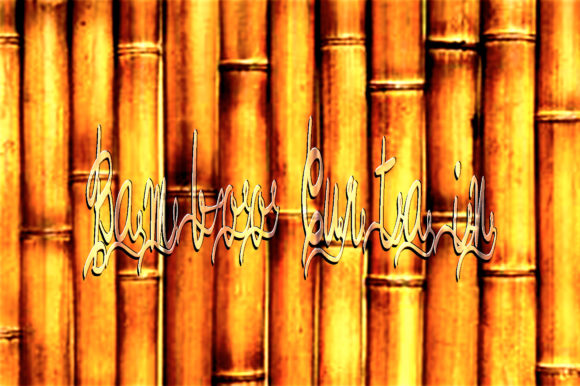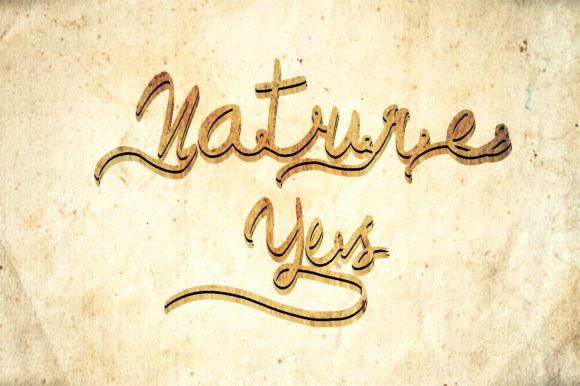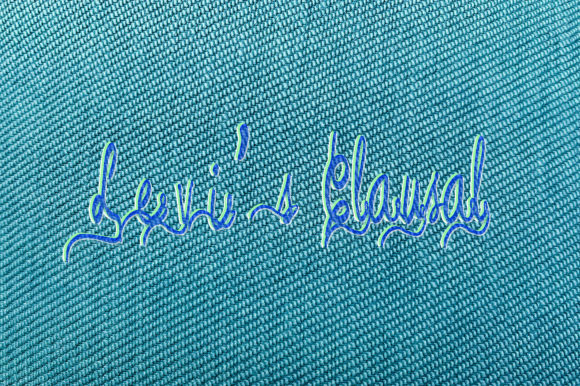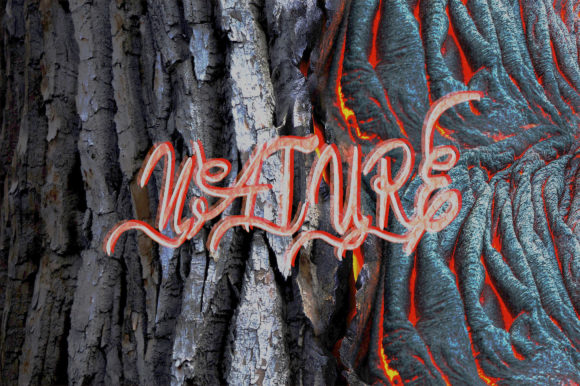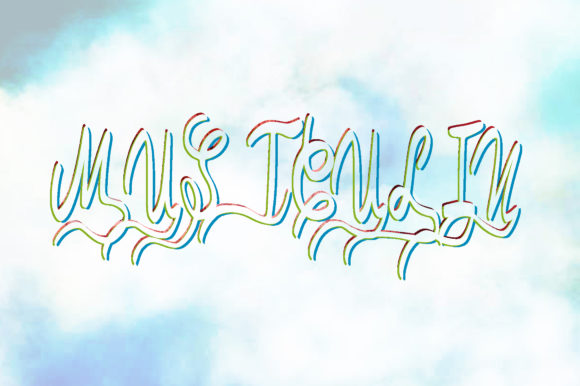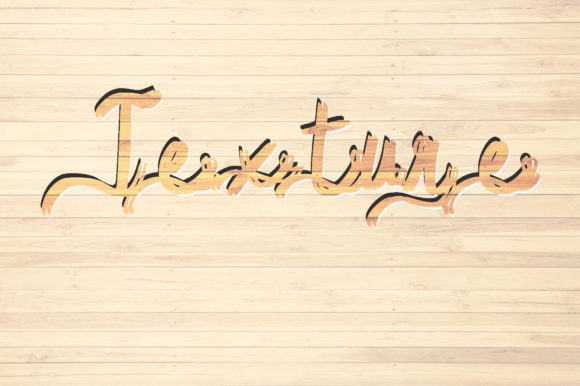
Bamboo Curtain Font: Elevate Your Designs with Whimsy and Elegance
Are you a designer or crafter looking for a font that embodies the perfect blend of delicacy, whimsy, and chic sophistication? Look no further than the Bamboo Curtain Font. This exquisite script font is designed to bring a touch of elegance and playfulness to your creative projects, making it an ideal choice for a wide range of design applications.
What Makes Bamboo Curtain Font Special?
Bamboo Curtain Font stands out with its beautiful and balanced character set, carefully crafted to ensure that each letter and swash complements the others in a harmonious dance. This attention to detail makes it a versatile addition to your font collection, capable of enhancing large design pools with its unique charm.
Applications of Bamboo Curtain Font
The versatility of Bamboo Curtain Font makes it suitable for a myriad of design projects. Here are a few ideas to get you started:
• Wedding Invitations and Stationery: Add a touch of whimsy and romance to your wedding designs with the elegant swashes and delicate letters.
• Fashion and Beauty Branding: Elevate your brand with a sophisticated and chic font that speaks to a refined audience.
• Packaging Design: Stand out on the shelves with eye-catching packaging that incorporates the beautiful, flowing lines of Bamboo Curtain.
• Digital and Print Media: Whether it’s for a website, blog, magazine, or advertisement, this font can add a unique and captivating element to your content.
Tips for Using Bamboo Curtain Font
To make the most of Bamboo Curtain Font, consider the following tips:
• Experiment with Swashes: Don’t be afraid to play around with the various swashes and glyphs available. They can add a personal touch to your designs.
• Mix and Match: Combine Bamboo Curtain with other fonts for interesting contrasts and visual hierarchies.
• Pay Attention to Spacing: Given its elegant and delicate nature, ensure that you adjust the spacing between letters appropriately to maintain readability and aesthetics.
Bamboo Curtain Font is more than just a script font; it’s a design element that can transform your projects with its whimsical, delicate, and chic appeal. Its PUA encoding ensures ease of use, while its balanced character set and beautiful swashes offer endless possibilities for creativity. Whether you’re a professional designer or a crafting enthusiast, Bamboo Curtain Font is sure to become a cherished part of your creative toolkit.